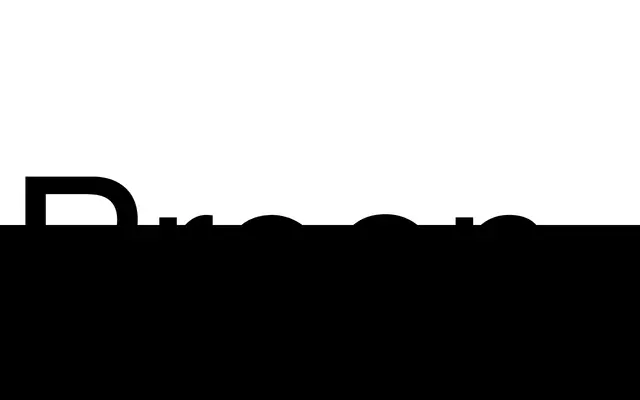
Preon
An experimental, wide-set sans-serif by Ondrej Jób with mixed terminals, low contrast and a large x-height across 14 styles from Thin to Black.
Described by Setup Type as a 'humanoid sans', Preon blends industrial character with organic mixed terminals across seven weights with matching italics. Its wide proportions and large x-height make it well-suited to both display and text settings. Four stylistic sets offer alternate letterforms including a simplified t, double-storey a, spurred r and u, and a stencil variant, alongside a full suite of numeral styles and over 100 language scripts.
Self-described as a 'humanoid sans' with mixed terminals and low contrast; the combination of industrial character with organic terminal variation places it within the humanist sans tradition, though with an experimental edge.